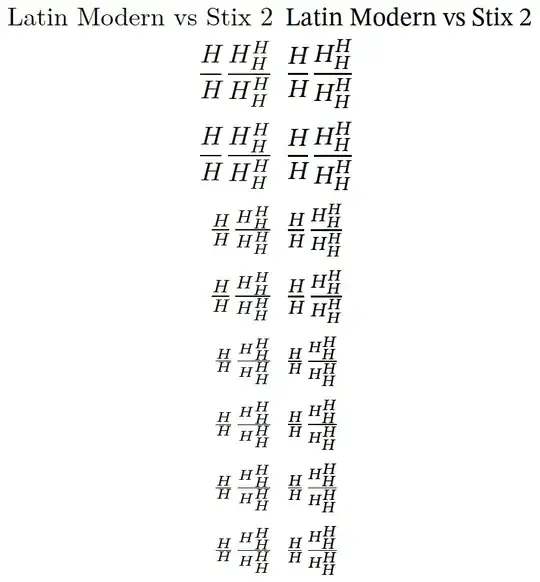
I am using the Stix 2 fonts for some of my documents and am pretty happy with them except for one thing: I feel they place an excessive amount of vertical spacing around fraction lines in text style math. Here's a comparison to Latin Modern.
This leads to fractions being pretty much unusable in in-line math, which one might argue is a good thing (though I do not agree). But even in display math I find them taking up an unreasonable amount of space when appearing in nested fractions of in exponents. Note how the "middle" H in the nested fraction is closer to the big fraction line than to the small one. This just looks weird.
So my question is twofold:
• Is this really intended? What might be the reasons for making it so?
• Do I have any recourse for changing this without changing fonts? That is, is there some (La)TeX dimension I can adjust to reduce this space?
As in classic tex you can fiddle with the parameters, here I reduce the spacing and increase the rule width (it's subtle, but you may notice the difference)
For anyone looking to do the same: Here are the settings I settled on following David's answer.